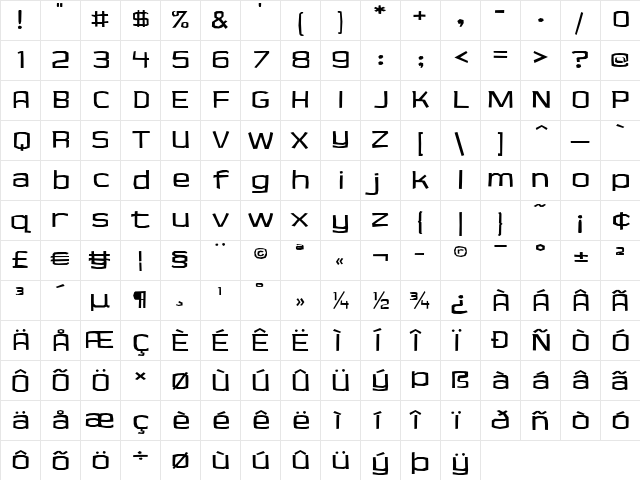
Cueva Regular
Design Context for Cueva Typeface
Cueva is a composed and adaptable typeface that performs quietly and consistently across a wide range of design contexts.